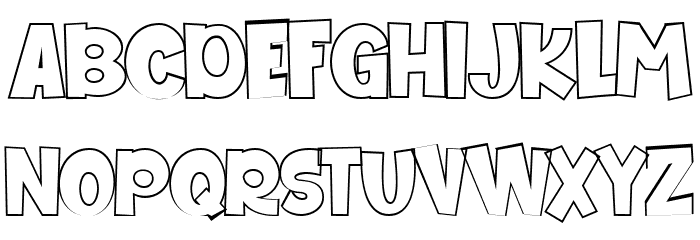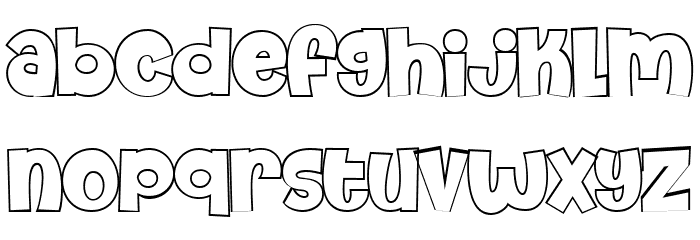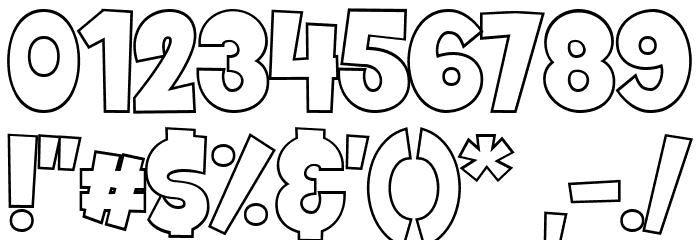
We Are Allstar Outline Font
This playful and bold font features an outline style that gives it a fun and energetic appearance. The characters are thick and rounded, with a cartoonish quality that makes them stand out. The uppercase and lowercase letters maintain a consistent style, with exaggerated curves and a slightly irregular shape that adds to the whimsical feel. Numbers and special characters follow the same design principles, ensuring a cohesive look across all elements. This font is perfect for projects that require a lively and informal touch, such as children's books, party invitations, or playful branding.
A bold, playful outline font with a cartoonish and energetic style.
- Proposed Projects: Ideal for children's books, party invitations, playful branding, and casual posters.
- Overall Style: Playful, Cartoonish, Energetic